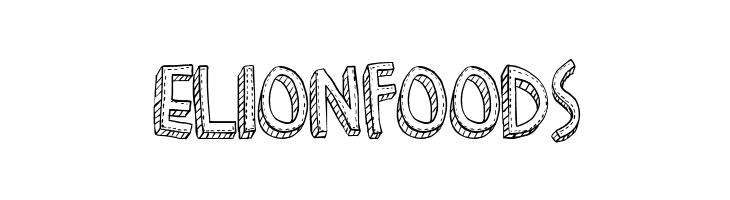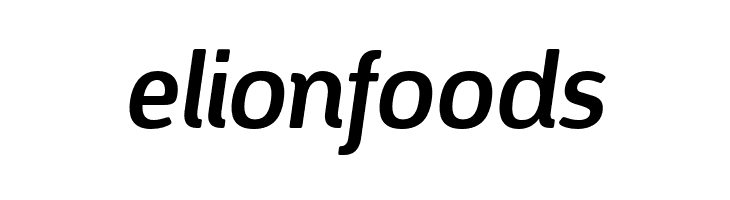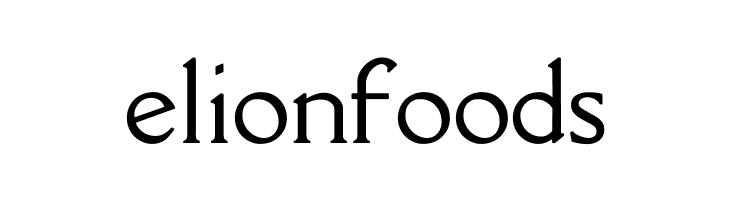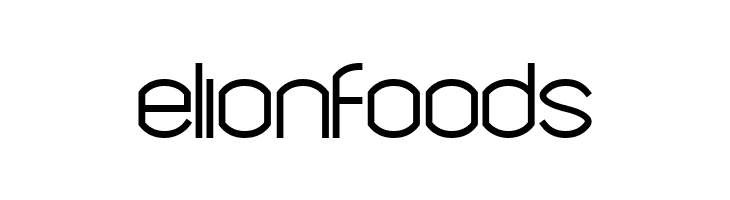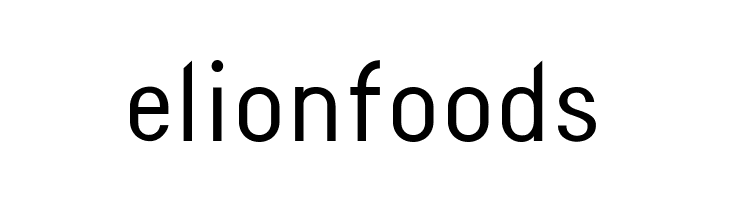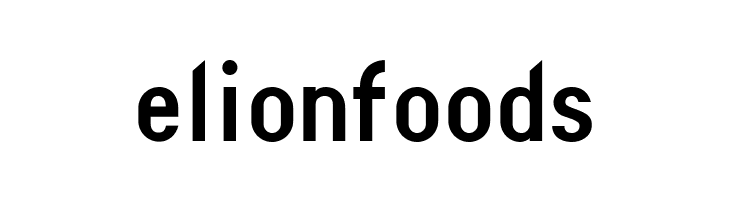
A classic serif font with elegant curves and moderate contrast.
A bold, textured font with a hand-drawn, chalk-like appearance.
A distressed, grunge-style font with rough edges and a textured appearance.
A sleek, modern font with thin, elongated strokes and geometric precision.
A sleek, modern oblique font with thin strokes and dynamic slant.
A playful, hand-drawn font with a sketch-like, three-dimensional appearance.
A modern, decorative font with circular and linear elements, featuring thin lines and dots.
A bold, edgy graffiti-style font with sharp angles and dynamic forms.
A bold, distressed font with a grunge texture, perfect for edgy designs.
A bold, angular font inspired by ancient runic alphabets, perfect for decorative use.
A bold, italicized font with angular, runic-inspired design.
An angular, italicized font with a runic, ancient script style.
A bold, angular font with a runic, stone-carved aesthetic.
A bold, expressive script font with flowing, connected letterforms.
A bold, sketch-like font with a playful, hand-drawn style.
A decorative serif font with artistic, hand-drawn embellishments.
A bold, hand-drawn font with a playful and rustic style.
A geometric, modern font with clean lines and a minimalist aesthetic.
A geometric and modern font with clean lines and uniform stroke width.
A bold, modern sans-serif font with a geometric structure.
A bold, geometric typeface with strong, clean lines and a modern look.
A clean, modern sans-serif font with uniform stroke widths and geometric influence.
A geometric font with diamond-shaped cutouts and a modern, edgy style.
). ) A clean, modern sans-serif font with uniform stroke width and geometric structure.
). ) A clean, modern sans-serif font with geometric shapes and uniform strokes.
). ) A clean, modern sans-serif font with excellent readability and geometric uniformity.